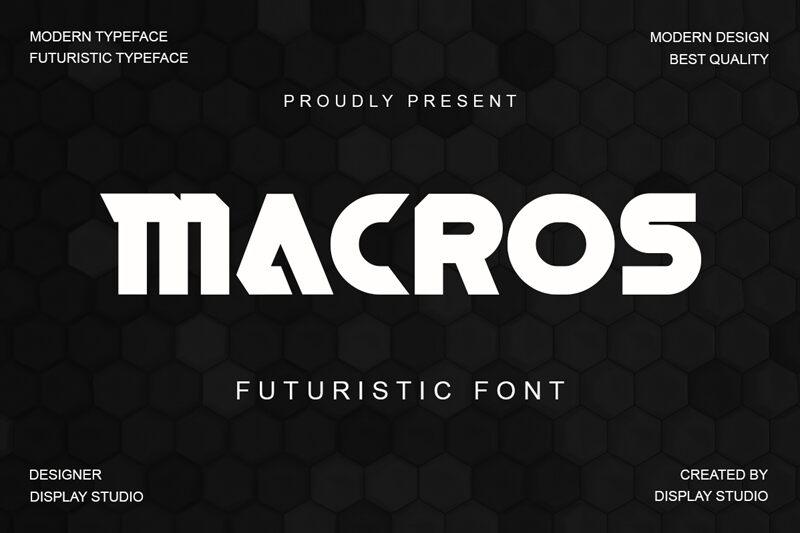
MACROS, designed by Display Studio, is a bold and futuristic display font that is perfect for projects that require a strong and modern look. With its sleek and daring style, MACROS will make your designs stand out from the crowd. This display font is ideal for anything from logos to posters, album covers to packaging. Use it to create a cutting-edge brand identity or to add an extra dimension of excitement to your next creative project. With MACROS' eye-catching design and bold weight, your message will be impossible to ignore.
MACROS